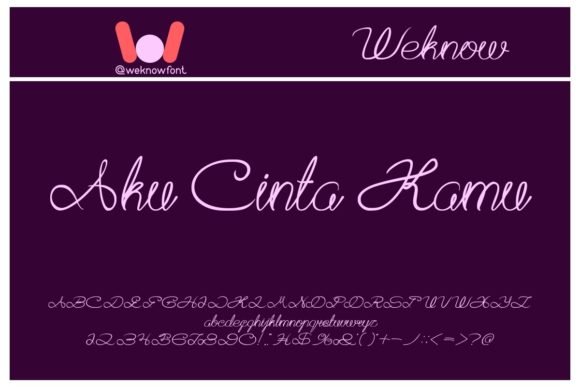
Discover the Whimsy of Aku Cinta Kamu Font
As designers, we’ve all been there – staring at a blank page, searching for that perfect font to bring our creative vision to life. And then, it happens. You stumble upon a font that makes your heart skip a beat, and suddenly, your design project is infused with a spark of magic. For many of us, this moment is what drives us to create something truly special.
Aku Cinta Kamu Font is one such font that can evoke this feeling. With its delicate, flowing script and whimsical characters, this font adds a touch of luxury to any design project. Whether you’re working on a wedding invitation, a children’s book, or a brand identity, Aku Cinta Kamu Font is sure to add a personal touch that sets your design apart. As a valuable asset for designers, this font is a must-have for anyone looking to create beautiful, one-of-a-kind designs.
Aku Cinta Kamu Font Key Features
- Unique Characteristics: Aku Cinta Kamu Font features a unique blend of traditional and modern elements, with intricate details and subtle nuances that make it perfect for creating eye-catching designs.
Aku Cinta Kamu Font Review
Aku Cinta Kamu Font is a beautiful and elegant script font designed to add a touch of Indonesian culture to your designs. ✨ One of the things that stands out about this font is its versatility. It can be used for a wide range of projects, from wedding invitations to product packaging.
- Unique aesthetic: Aku Cinta Kamu Font has a unique and exotic feel to it, making it perfect for designers looking to add some cultural flair to their work.
- Wide character set: The font includes a wide range of characters, including uppercase and lowercase letters, numbers, and punctuation marks.
- Easy to read: Despite its elegant design, the font is easy to read and understand, even at small font sizes.
However, there are some limitations to consider. ⚠️ The font may not be suitable for designs that require a more modern or minimalist look. Additionally, the font’s elegance can sometimes make it feel too formal or sophisticated for certain projects.
Overall, I would give Aku Cinta Kamu Font 4 out of 5 stars. While it has some limitations, its unique aesthetic and versatility make it a great addition to any designer’s toolkit. With some careful consideration of its limitations, I’m confident that this font can help take your designs to the next level.
Here are some tips to get the most out of the Aku Cinta Kamu font:
- Use the font for creative and artistic projects, such as graphics, posters, and invitations.
- Apply the font to text elements that require a unique and personalized touch.
- Experiment with different font sizes, styles, and colors to create a visually appealing design.